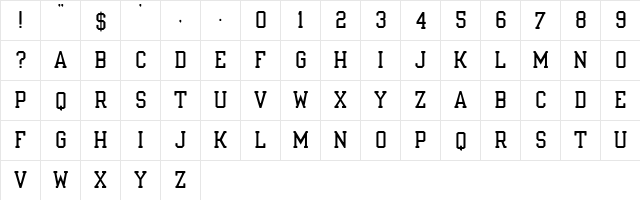
Nuport Regular
Design Context for Nuport Typeface
Nuport takes a measured approach to typography — its balanced proportions and neutral character make it a reliable workhorse for both digital and print work.